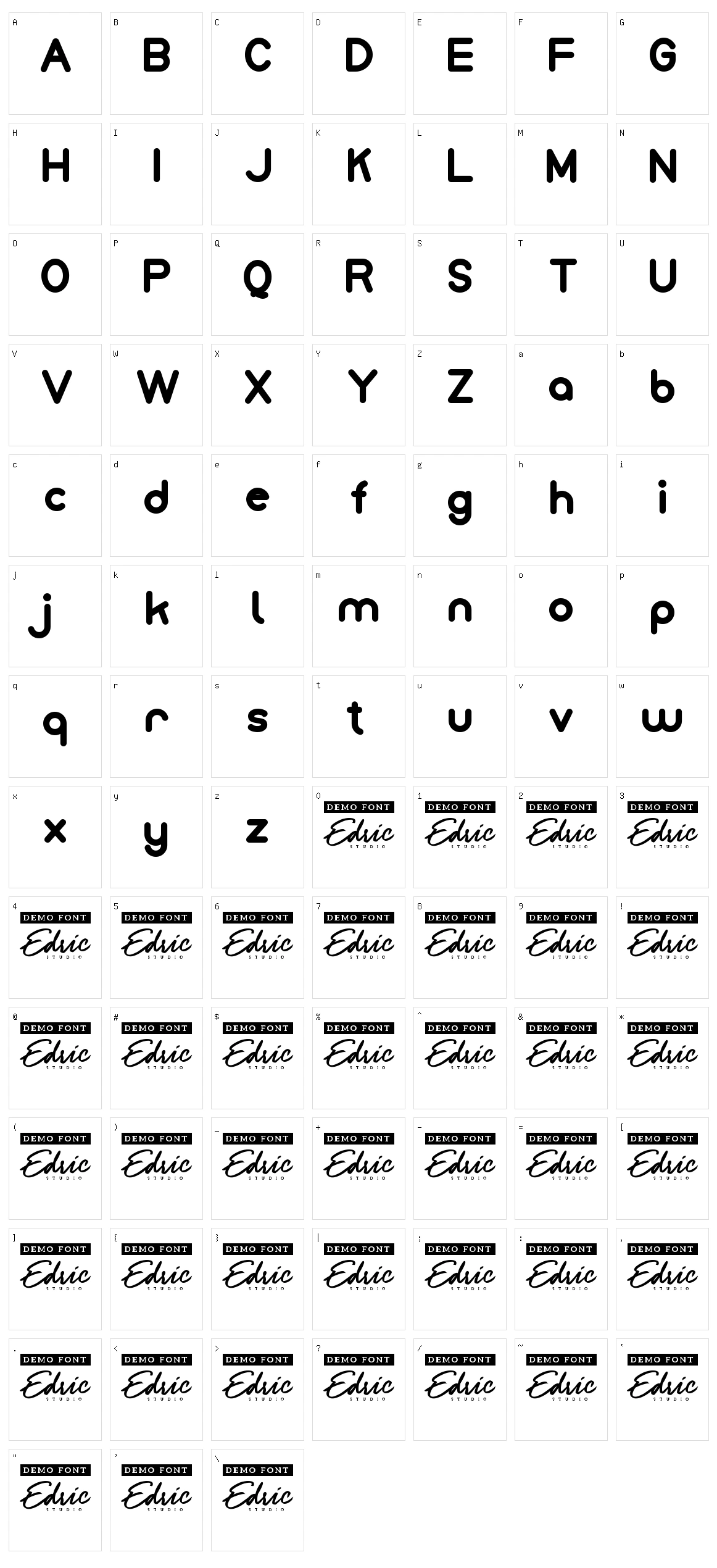
The free font Monice is carefully designed by Edric Studio, showcasing a thoughtful balance of creativity and usability and falls under the Sans serif font style. When you download the ZIP file, it contains only 141.38 KB of font files, making it lightweight and quick to download. Please review the license details below to understand permitted usage and distribution rights. If license information is not available, we recommend using this font for personal projects only or contacting the author directly for commercial usage permissions.